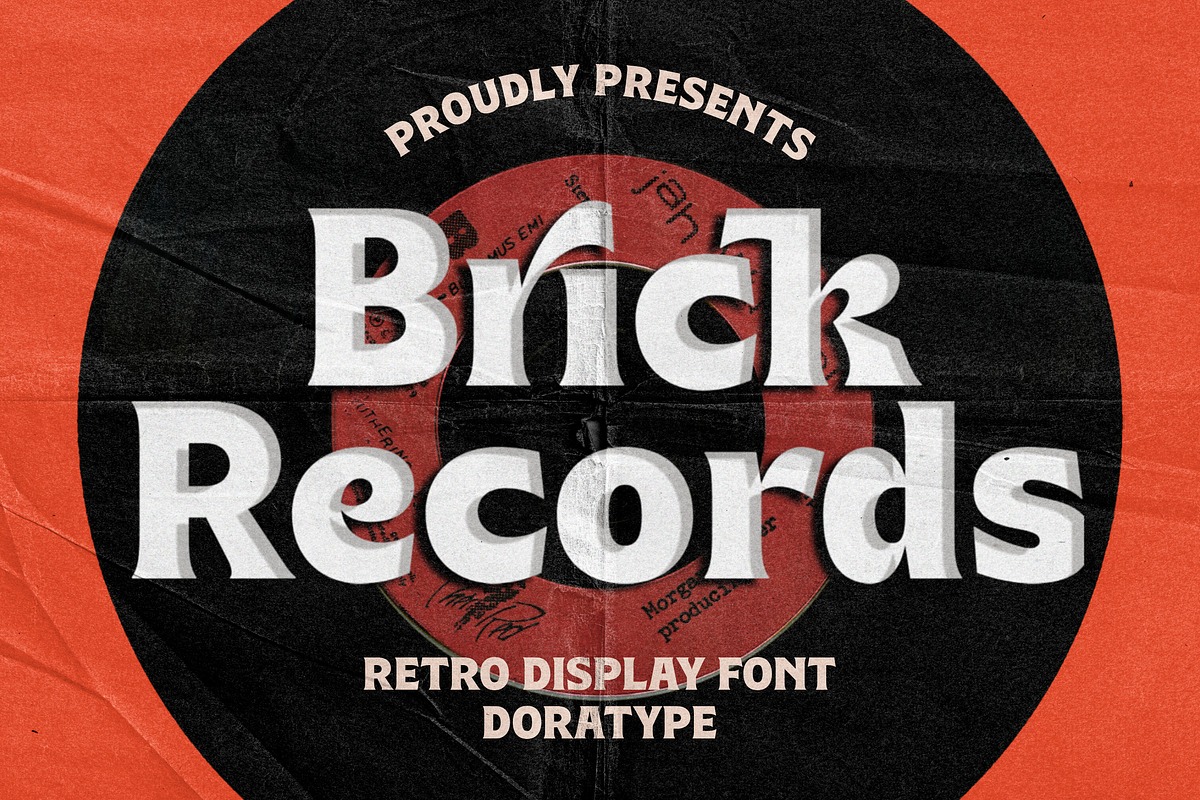
Brick Records – Retro Serif Font
Brick Records – Retro Serif Font is a professionally designed typeface that delivers clarity, structure, and consistent performance across various design applications. Brick Records is a bold serif typeface with a vintage and retro look! You’ll definitely love this font that gives off a sophisticated feel even with all its playfulness. equipped with ligatures, the alternative becomes an attractive option. Brick Records is perfect for branding, magazines, web, broadcast, packaging, apparel print, branding, titling, headlines and more.